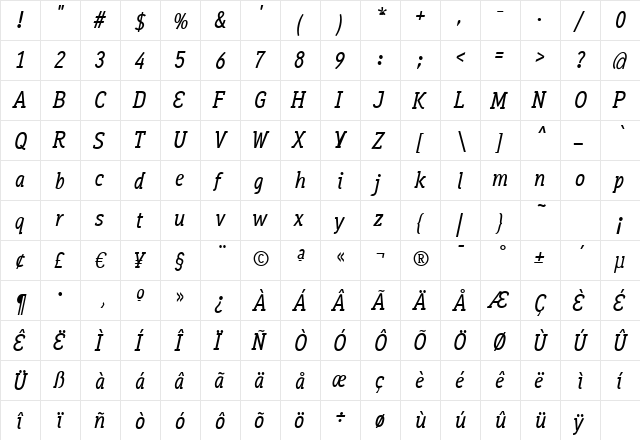
Aaux OfficeMedium Italic Regular Font Preview
Aaux OfficeMedium Italic Regular
Design Context for Aaux OfficeMedium Italic Typeface
Aaux OfficeMedium Italic is a composed and adaptable typeface that performs quietly and consistently across a wide range of design contexts. Its italic angle brings a sense of urgency and motion to the letterforms.
Pro Tip: Try Aaux OfficeMedium Italic for annotation and caption copy alongside an upright companion — the contrast in angle creates a dynamic but ordered typographic system.